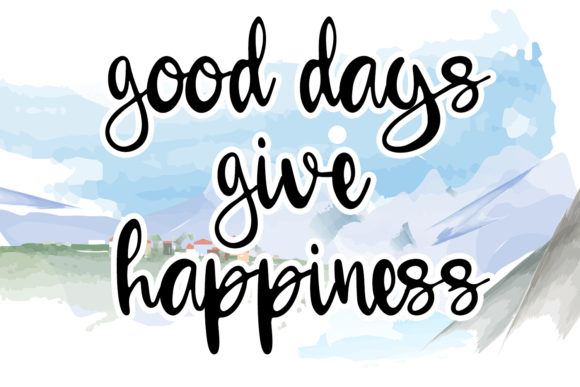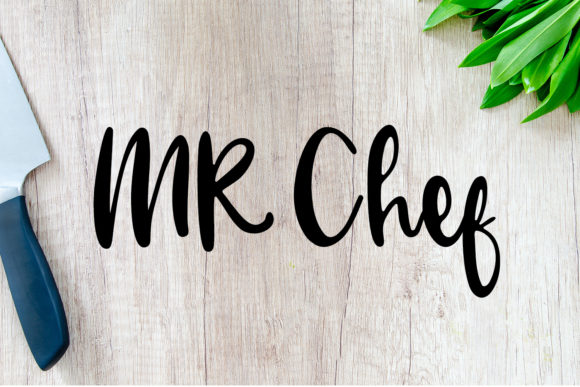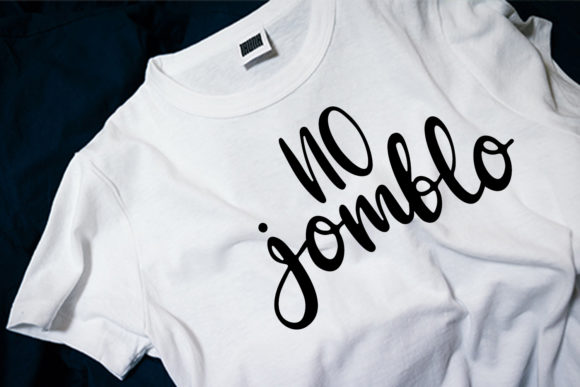
Dreamhigh Font
About Dreamhigh Font
Dreamhigh is a beautiful and flowing handwritten font. Unique and casual, this font is the absolute perfect choice for each of your designs!